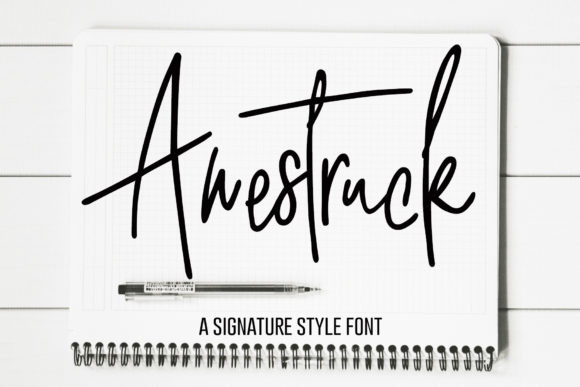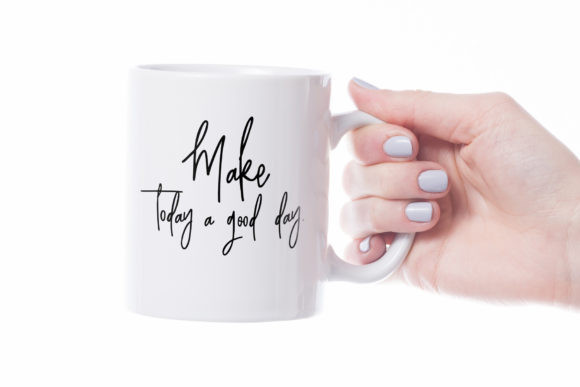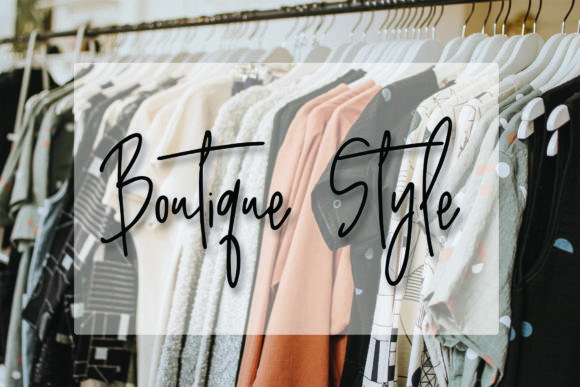
Awestruck Font
Awestruck is a fashionable and relaxed script font. It has a classy, elegant and modern look that can be used for logos, branding, invitations, stationery, wedding designs, social media posts, and much more!